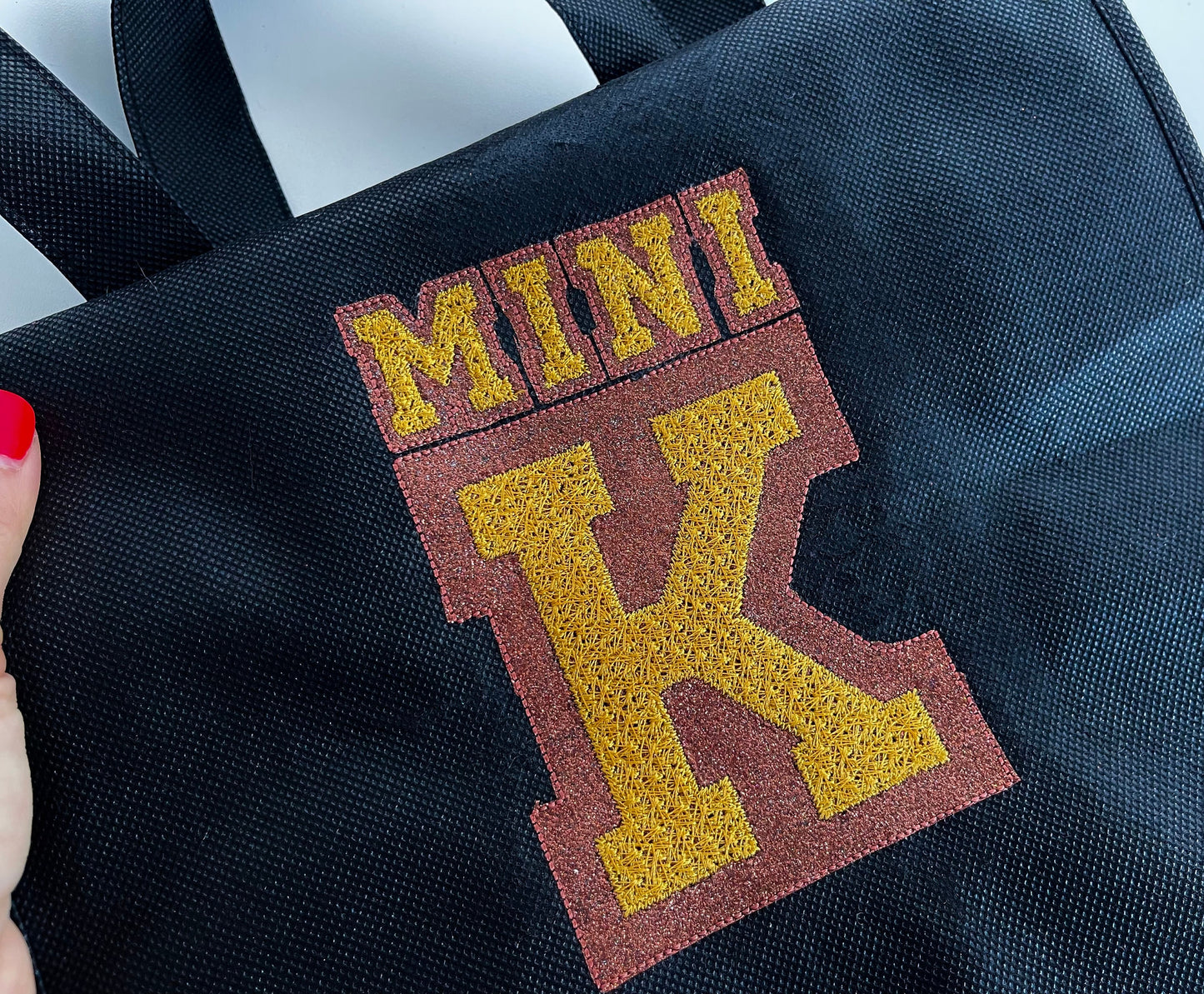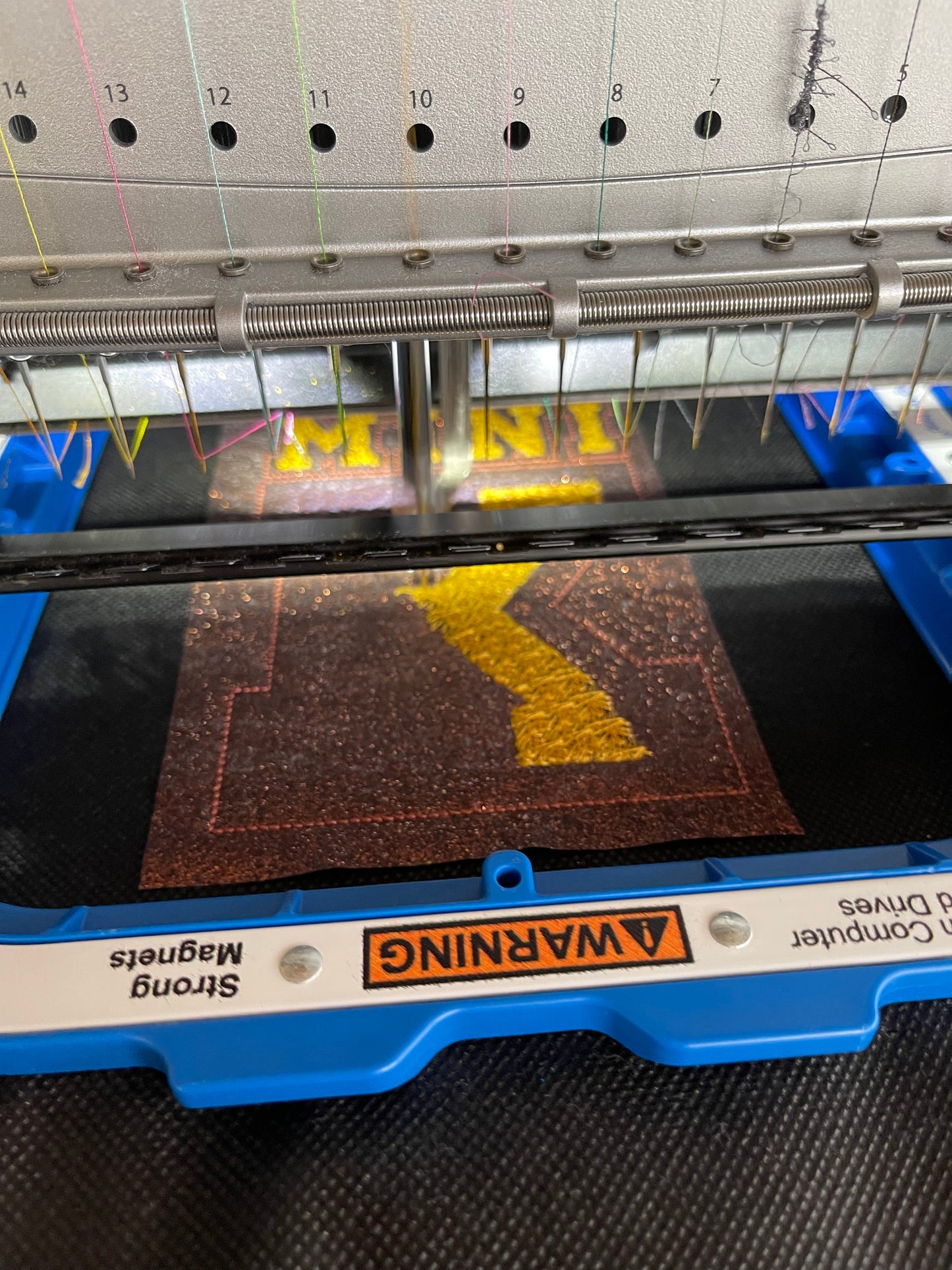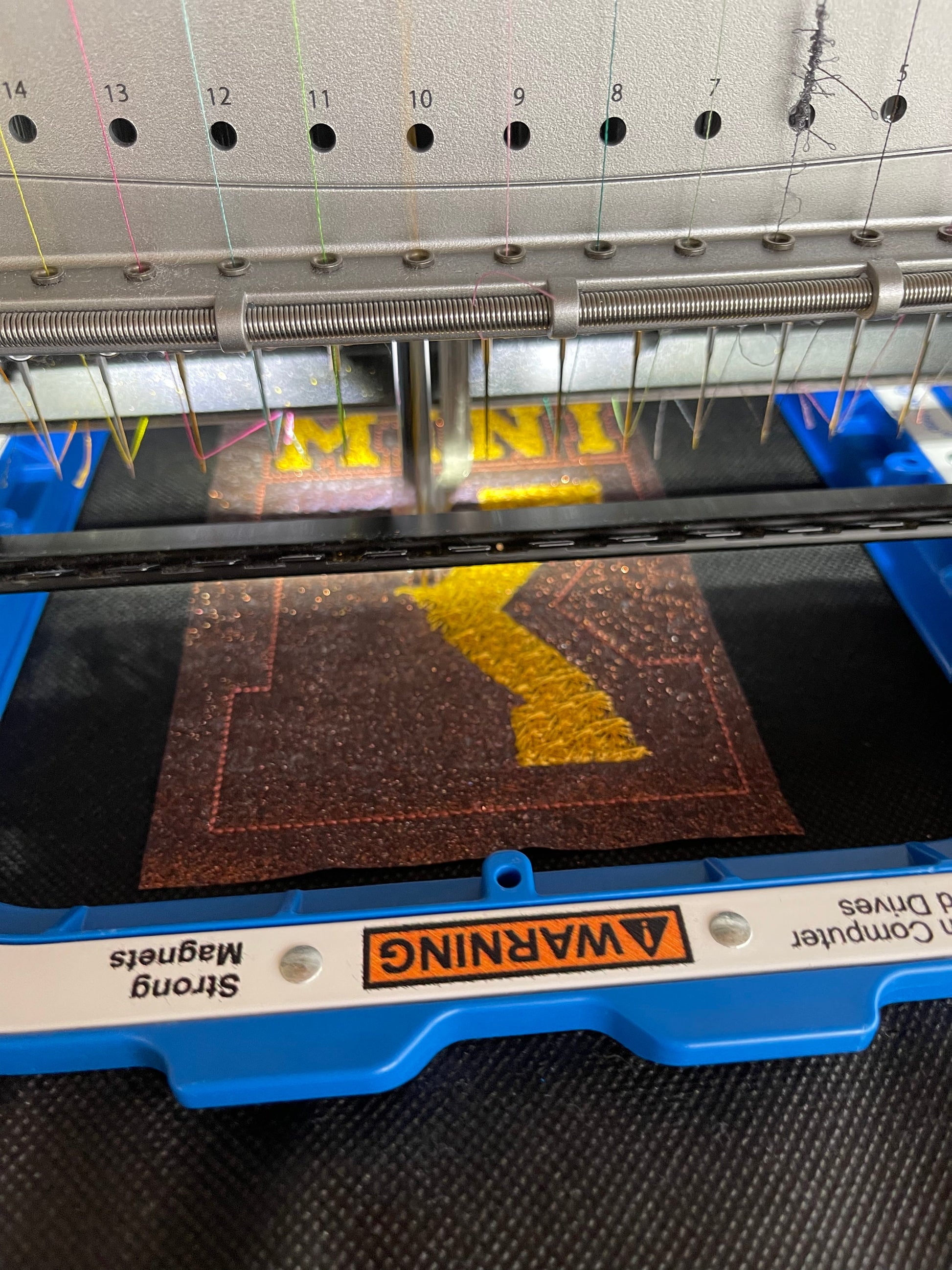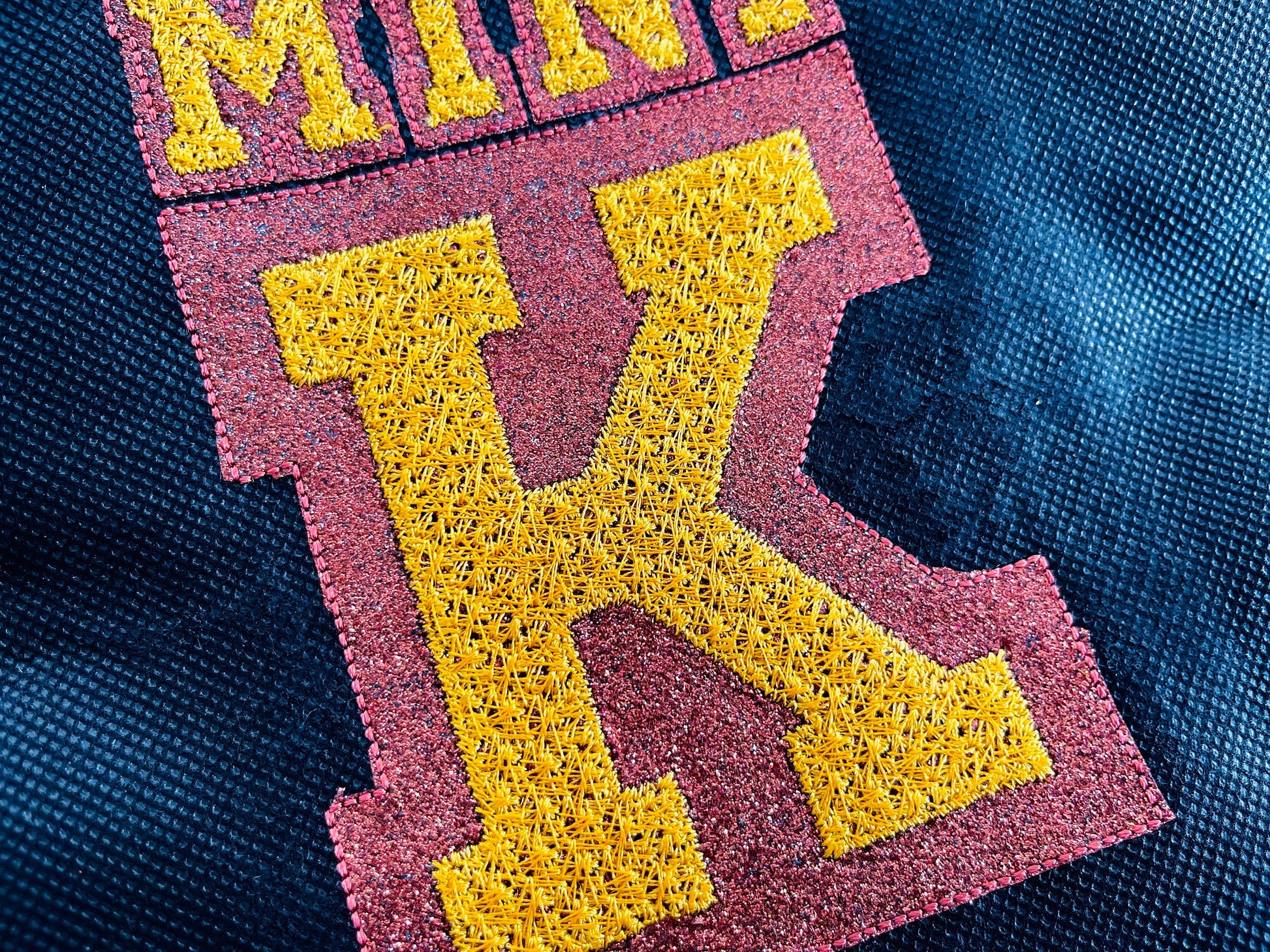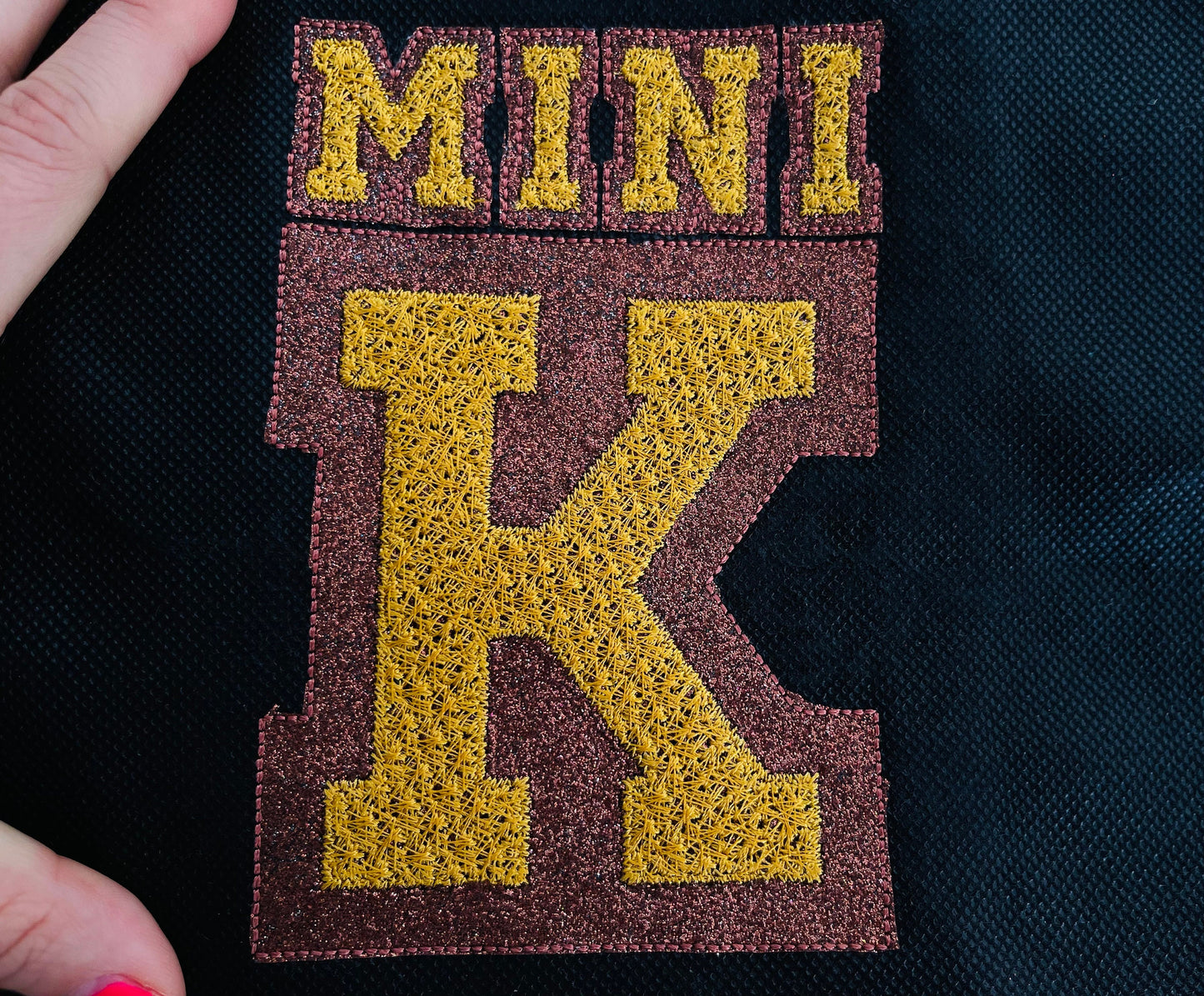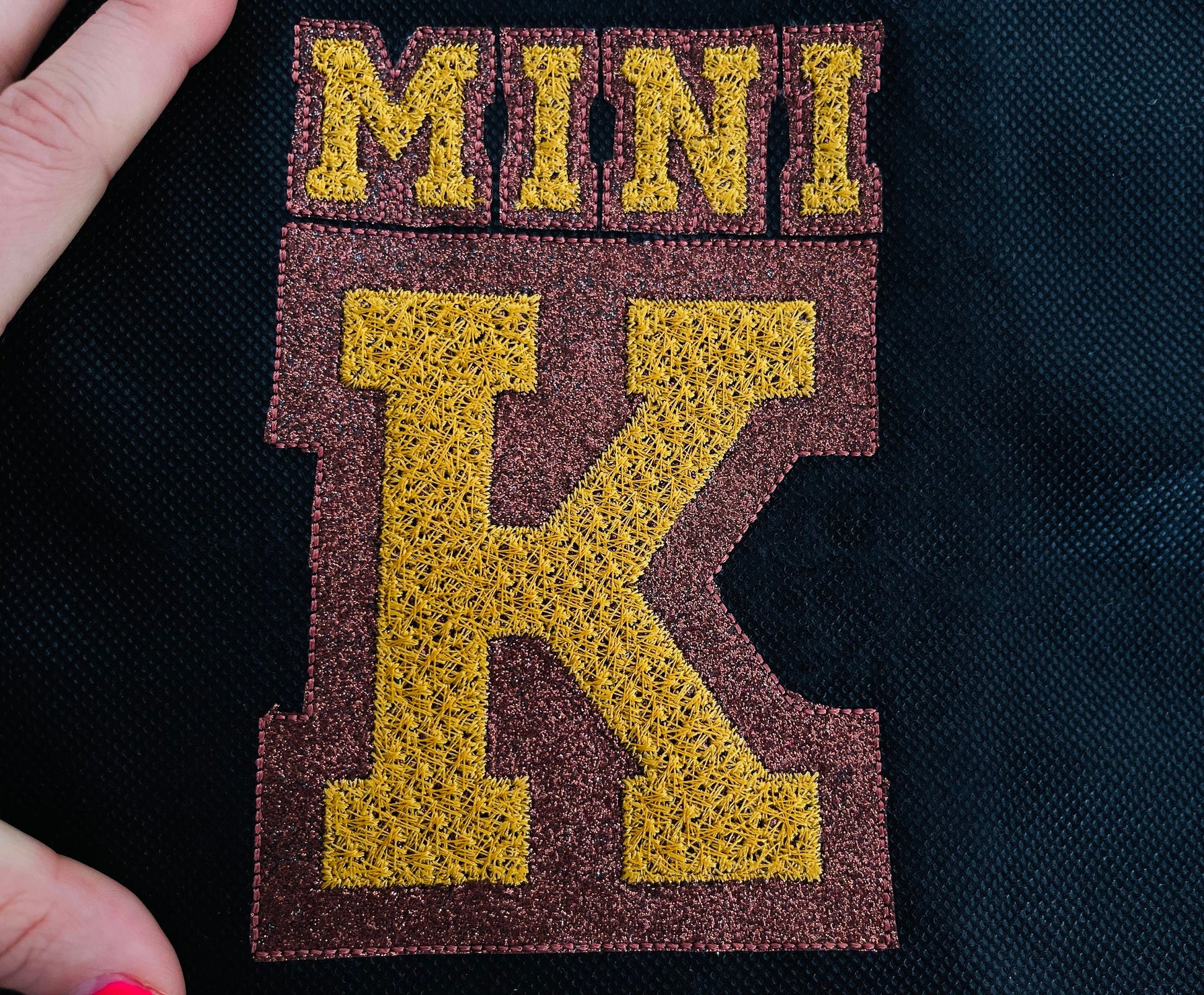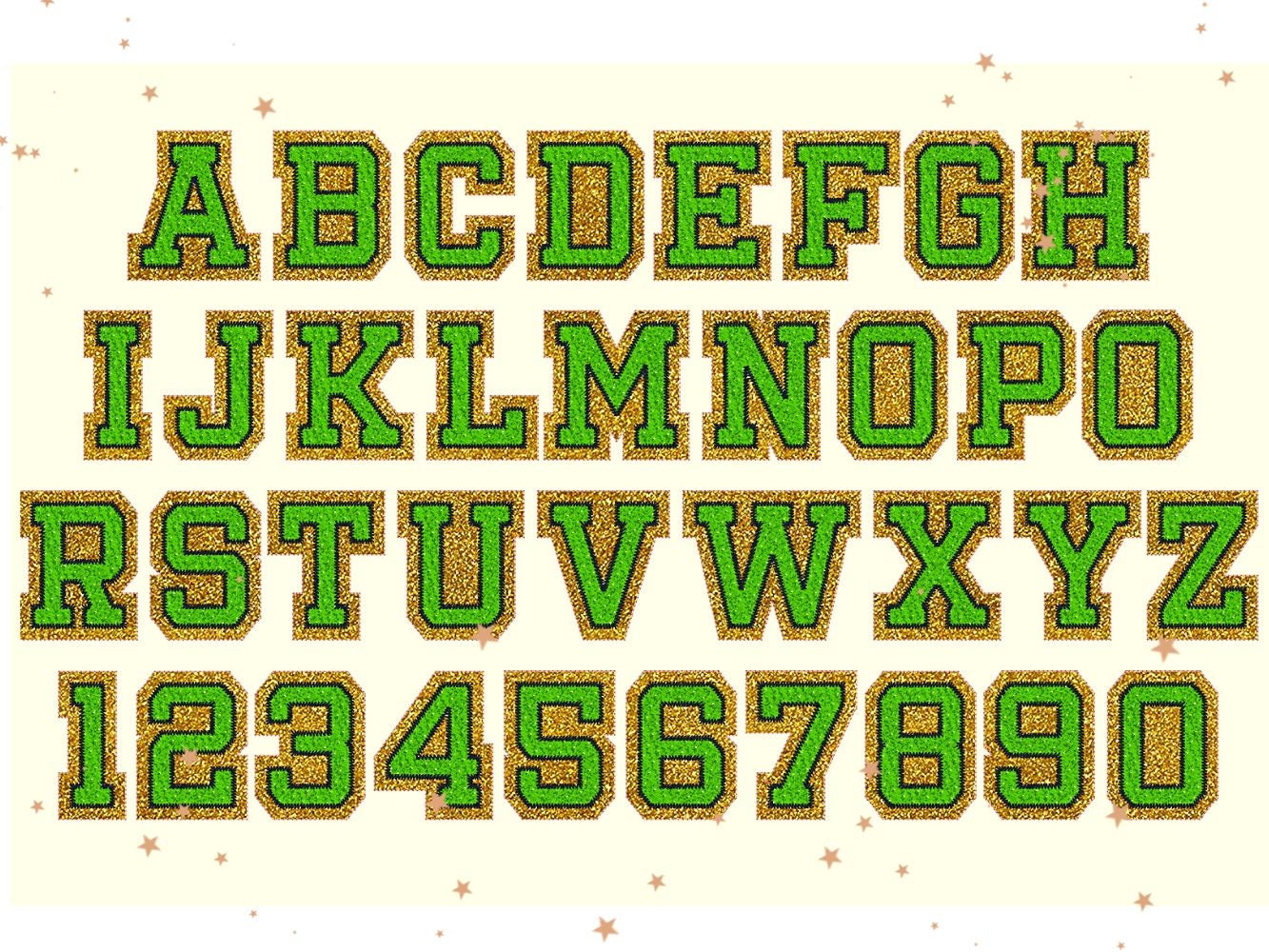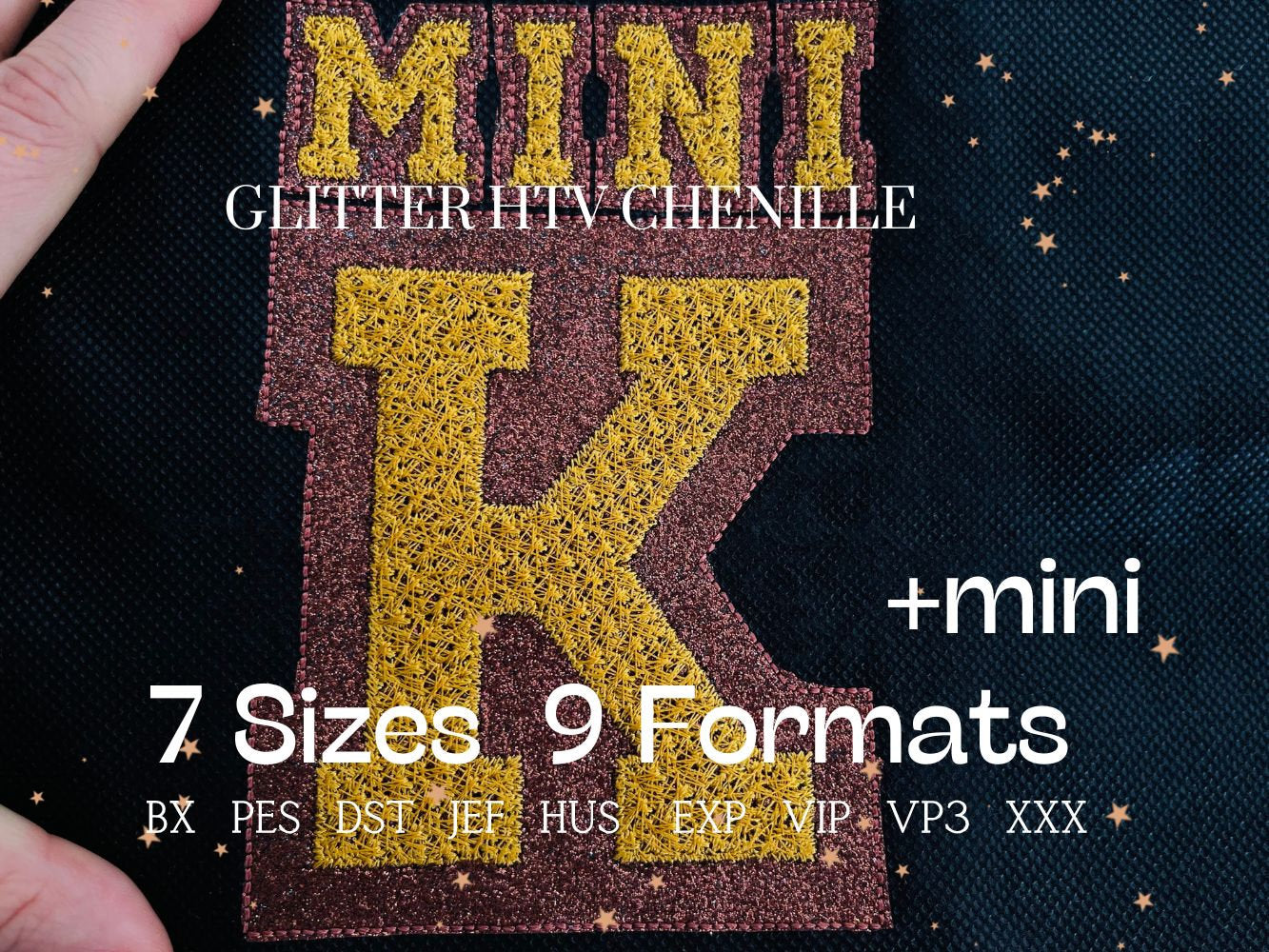
Glitter HTV Vinyl Narrow Athletic Font
This alphabet is perfect to make terry and glitter letters.
Whole alphabet upprecase letters A-Z, and numbers 0-9.